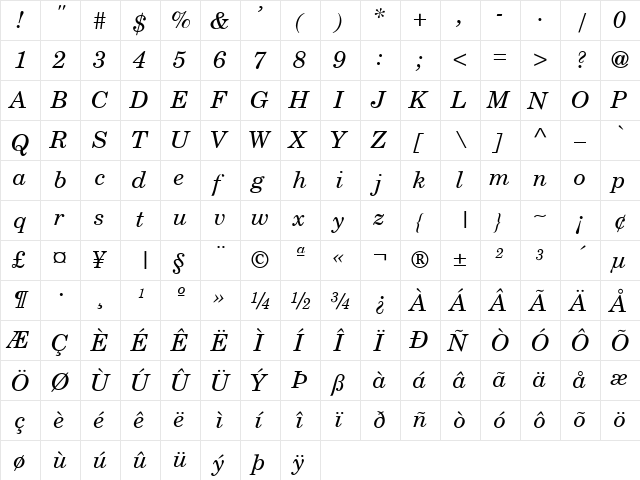
NewBrunswick Italic
Design Context for NewBrunswick Typeface
NewBrunswick takes a measured approach to typography — its balanced proportions and neutral character make it a reliable workhorse for both digital and print work. Its italic angle brings a sense of urgency and motion to the letterforms.
Pro Tip: Try NewBrunswick for annotation and caption copy alongside an upright companion — the contrast in angle creates a dynamic but ordered typographic system.